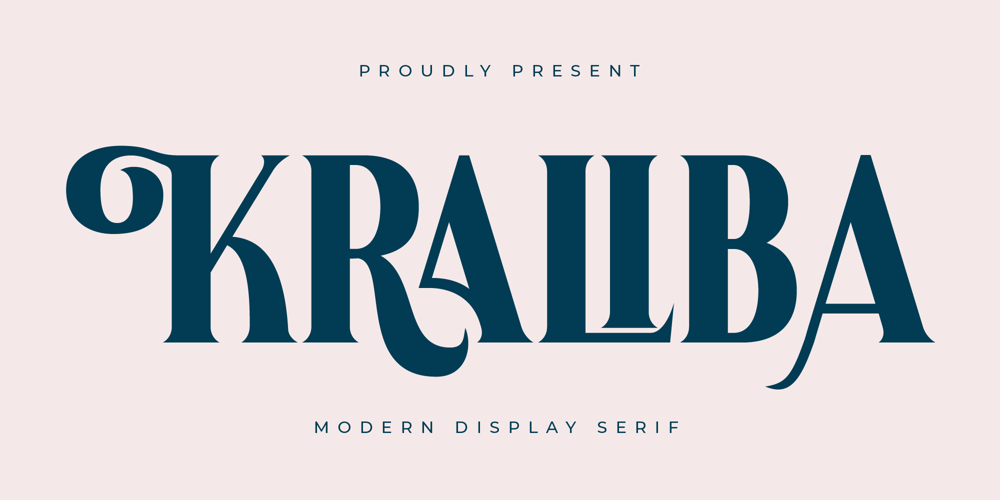
Kraliba Font Family was designed by Heru Utama Putra and published by Letterena Studios. Kraliba contains 2 styles and family package options. Kraliba, a bold serif font, exudes style and uniqueness with its distinctive design. Strong, confident letterforms seamlessly marry modern flair with timeless sophistication. Ideal for making a statement, Kraliba adds a touch of bold elegance to your projects, ensuring a memorable and impactful visual presence.